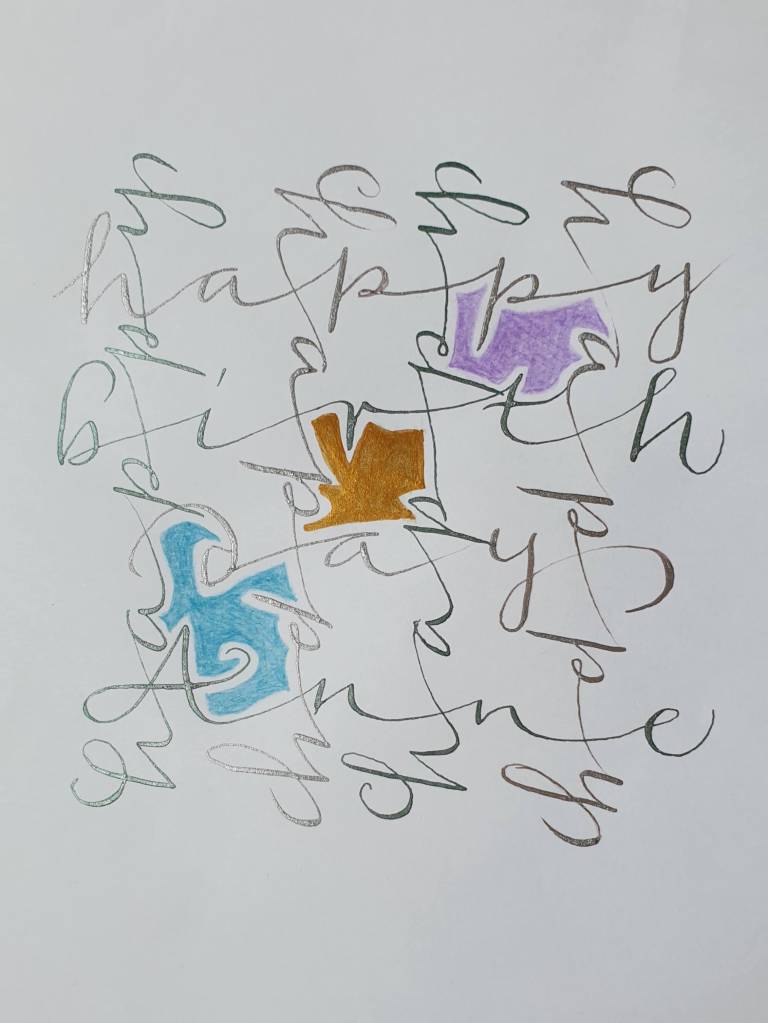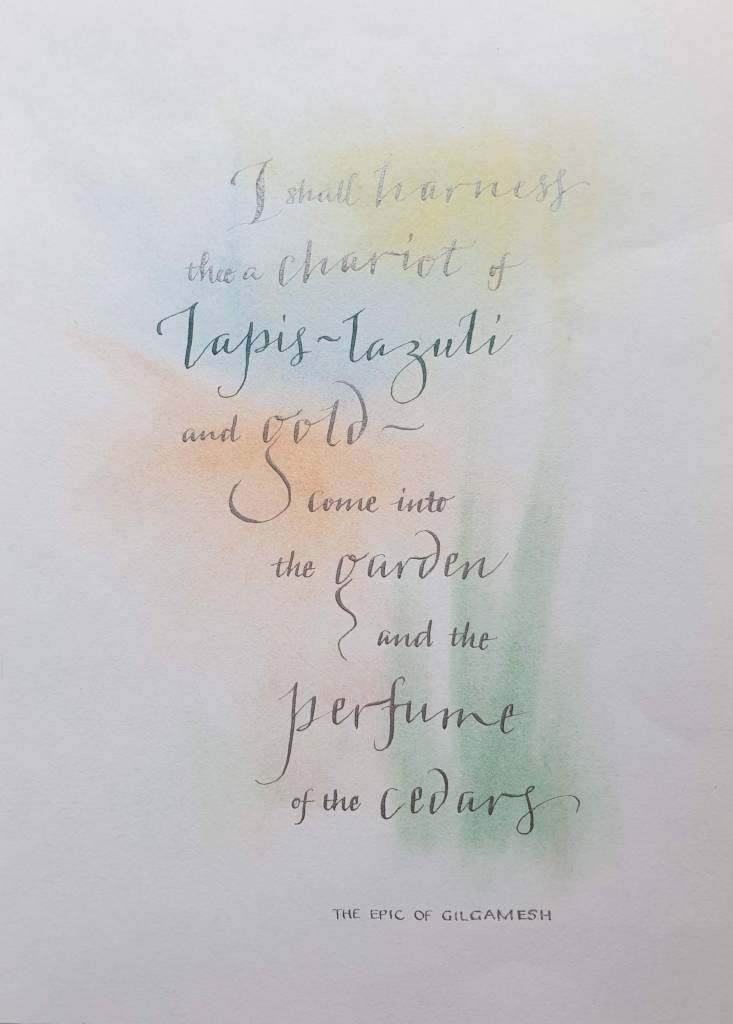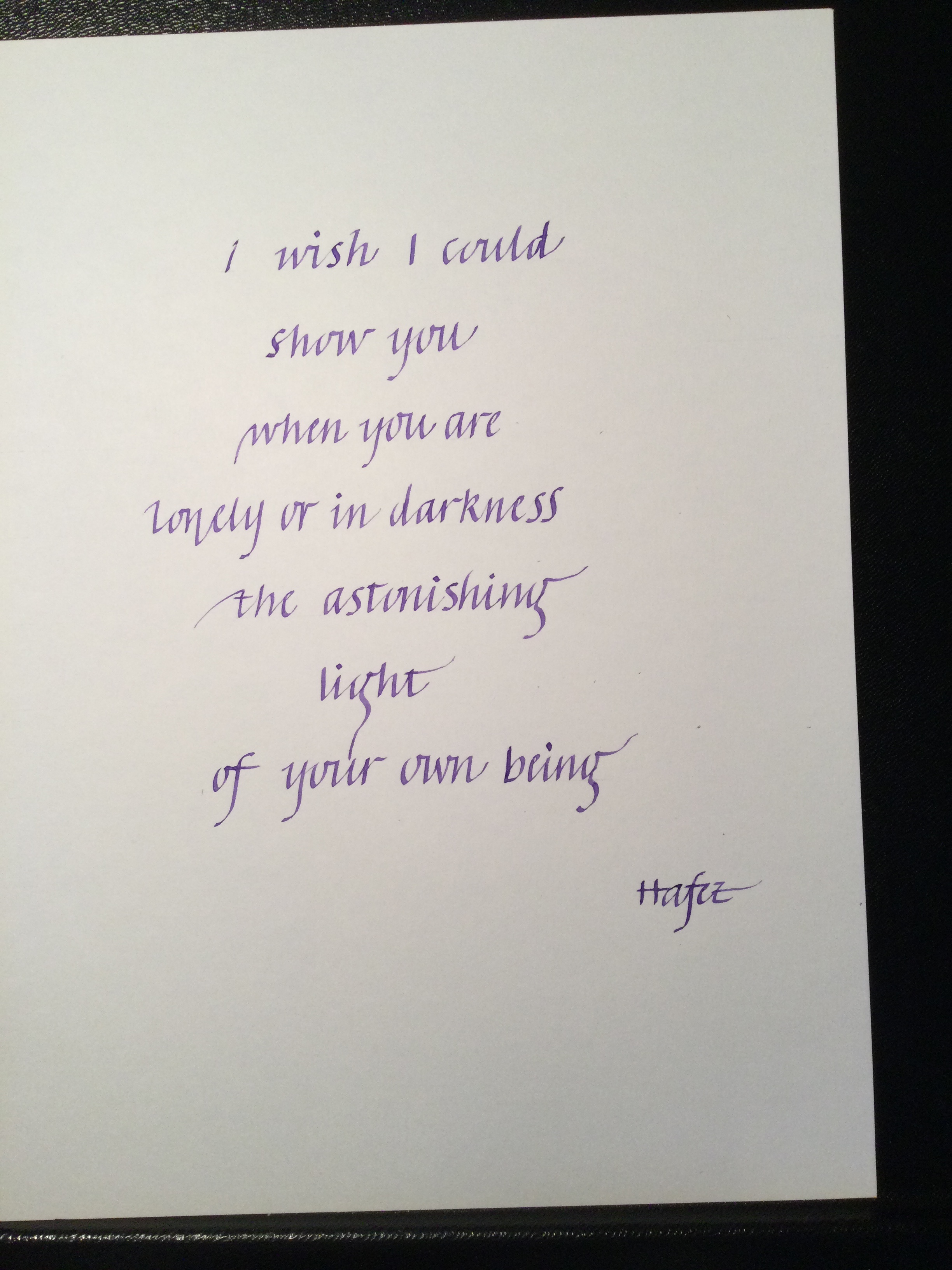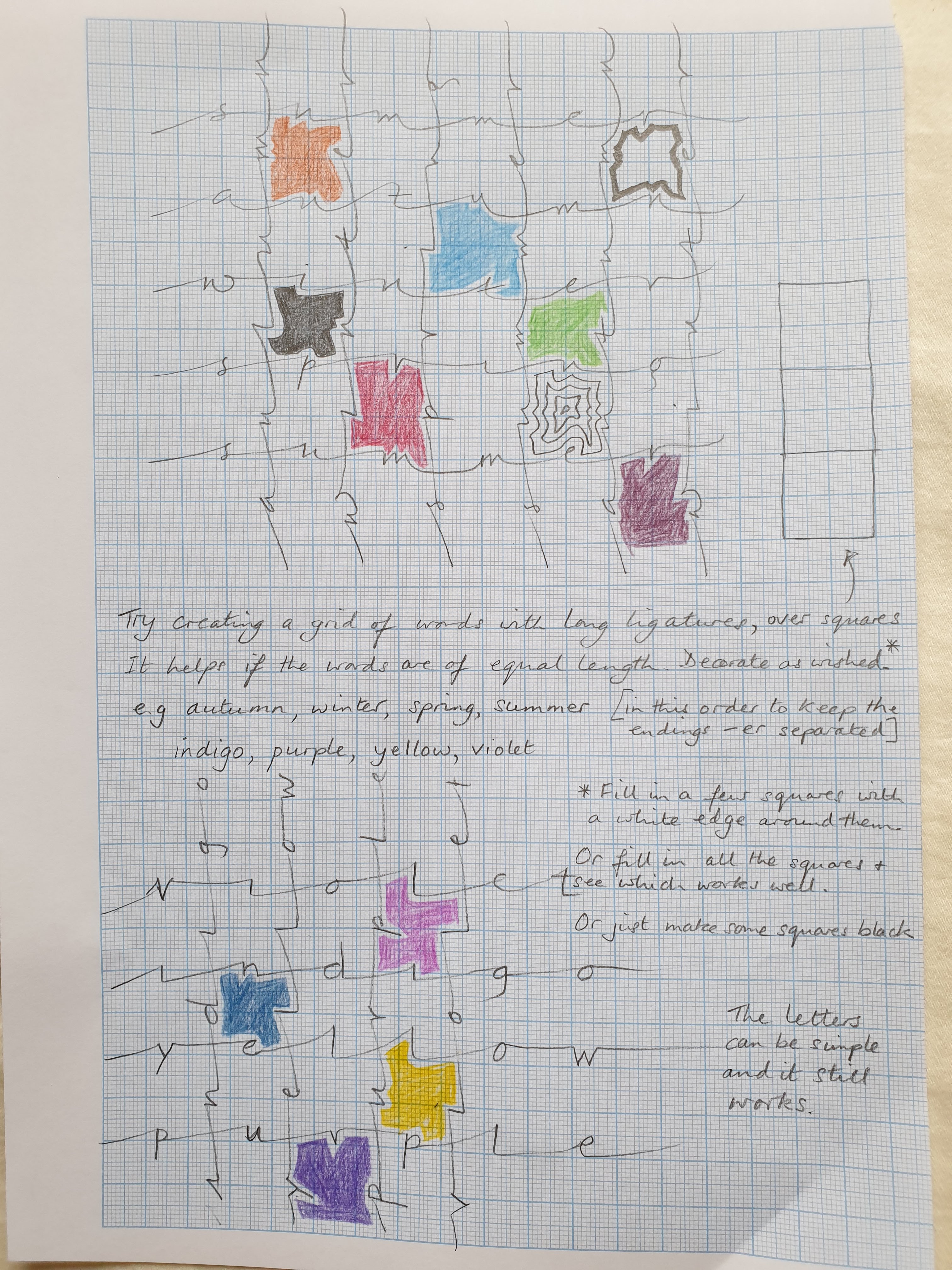
Ann Mason’s italic workshop was on Saturday 16th January via Zoom. Italic written in a formal style with no ligatures can look a bit too regular and static. Ann introduced us to using ligatures we see more often in copperplate and we found that italic does indeed become more elastic. We tried out pencils, pointed nibs and edge pens to see their effects. With an edge pen Ann taught us that lifting up onto the right corner of the nib creates a different arch stroke than lifting onto the left corner. Who knew! She emphasised that taking time and slowing down is the key, and it still looks as if we breezed through the words at speed. Ligatures allow you to bounce the letters a bit and break up the monotony of sticking everything exactly on the line. Fantastic. Really stretching out the ligatures between letters and then writing the same words at right-angles creates an interesting grid and you can play with colour in the spaces. This brought to mind an image of Anne Bronte’s last letter to a friend where she made maximum use of her paper, writing out the sentences at right-angles and diagonally. You can see this image in a blog written by the Bronte Society in Italy at this link – https://www.thesistersroom.com/2019/01/24/annes-last-letter/?lang=en
Try writing stretched words in a grid Wendy Harris Deborah Clarke Elissan Renouf – card for Kit Sue Hodgkinson – card for Anne